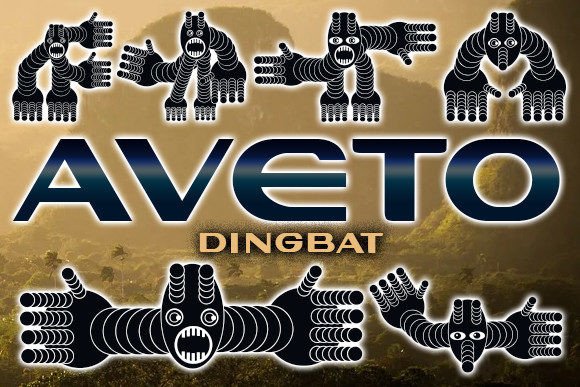
The Aveto Font: A Bold and Stylish Dingbat for Your Designs
I’ll never forget the time I was working on a project for a client who wanted a bold, eye-catching font to make their poster stand out. I scoured the internet for hours, trying out different fonts, but nothing seemed quite right. That was until I stumbled upon the Aveto font. Its striking and bold dingbats instantly caught my attention, and I knew I had found the perfect fit. In this article, I’ll share my experience with the Aveto font, its features, and how to make the most of it in your designs.
An Honest Review of Aveto Font
- ✨ **Bold and striking dingbats**: Aveto font is perfect for making a statement in your designs. Its bold and eye-catching dingbats are sure to grab attention.
- ✅ **Versatile**: Aveto font can be used on a variety of design materials, including posters, flyers, t-shirts, and more.
- 🎨 **Easy to use**: The font is easy to navigate, and its OpenType features make it simple to access a wide range of glyphs and stylistic alternates.
While the Aveto font is an excellent choice for many designs, there are a few things to keep in mind:
- 🤔 **Limited text use**: As a dingbat font, Aveto is best used for short phrases or titles. It’s not ideal for large blocks of text.
- ⚠️ **Some glyphs may not work well in all contexts**: As with any font, it’s essential to test the Aveto font in your specific design to ensure the glyphs work well in your context.
The Backstory of Aveto Font
The Aveto font was designed by a team of creatives who wanted to create a bold and stylish dingbat font that would make a statement in any design. Inspired by modern art and architecture, the Aveto font features striking and eye-catching glyphs that are sure to grab attention. The design team spent countless hours perfecting the font, ensuring that it was both versatile and easy to use.
| Font Name | Aveto Font |
| Author | vladimirnikolic |
| What is the Aveto font best used for? | The Aveto font is best used for bold, eye-catching designs such as posters, flyers, and t-shirts. |
| Is the Aveto font suitable for large blocks of text? | No, the Aveto font is best used for short phrases or titles. It’s not ideal for large blocks of text. |